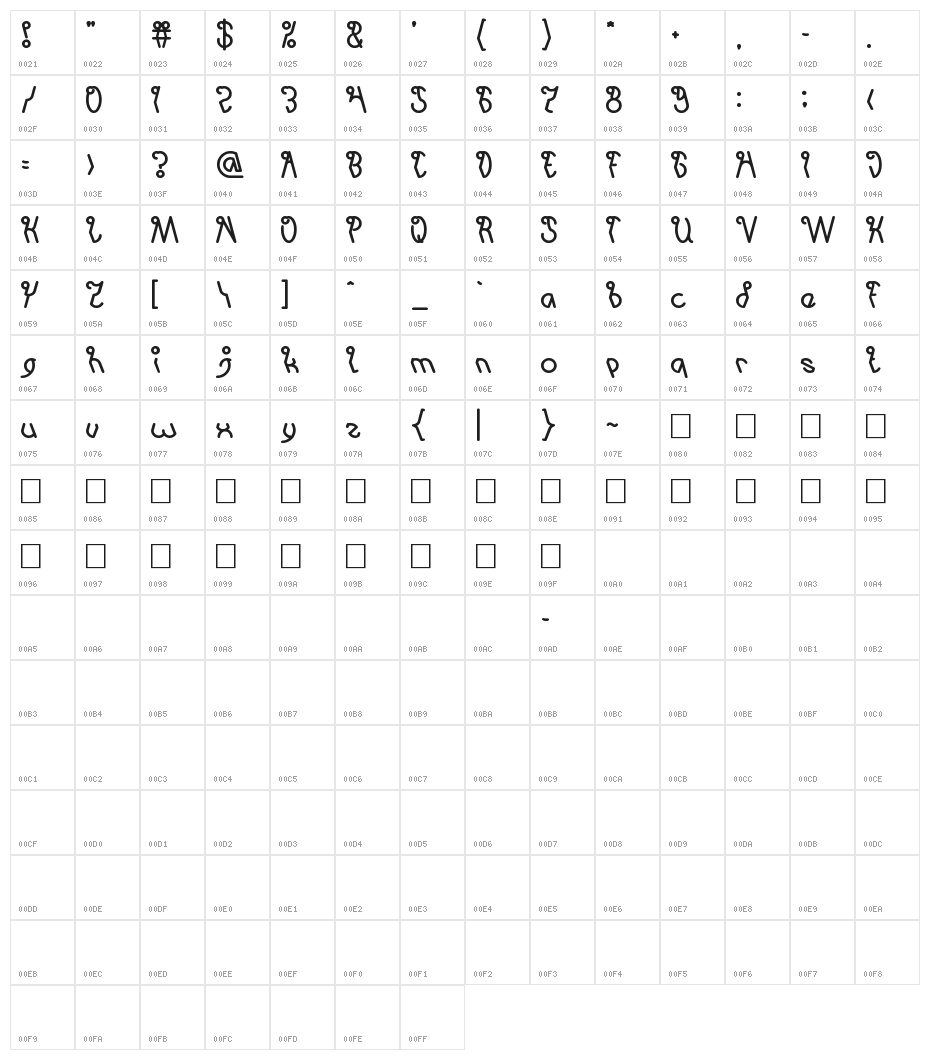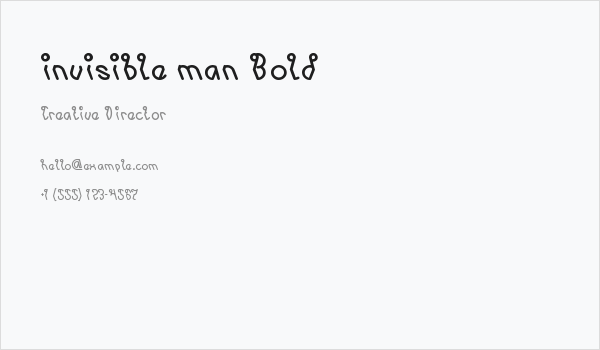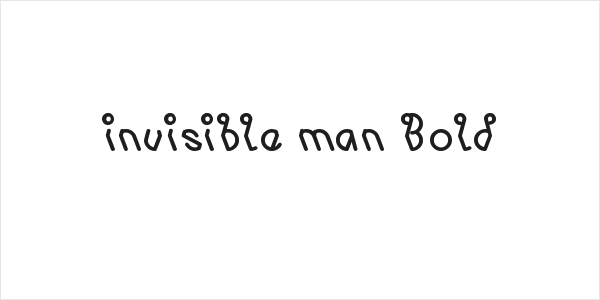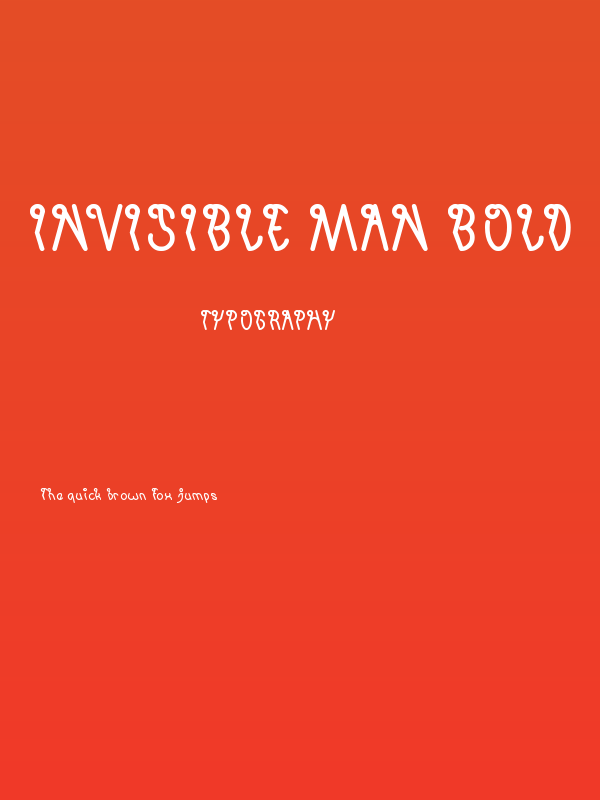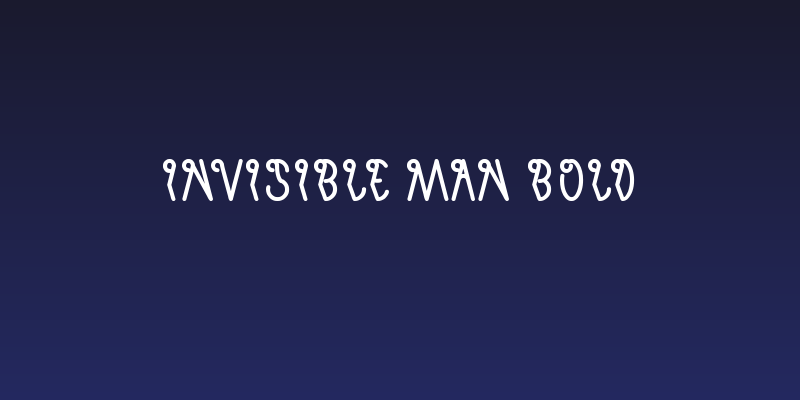
invisible man Bold Font
invisible man Bold Description
This font features a playful and whimsical design, characterized by its unique looped and curved elements. The letters have a hand-drawn appearance, with exaggerated curves and a slightly uneven baseline that adds to its charm. The uppercase and lowercase letters maintain a consistent style, with rounded edges and a bold presence. The numbers and special characters follow the same playful aesthetic, making the font suitable for creative and informal projects. Its bold weight and distinctive style make it stand out, while the character spacing is relatively normal, ensuring readability despite its decorative nature.
| Proposed Projects | Ideal for children's books, playful branding, creative posters, and informal invitations. |